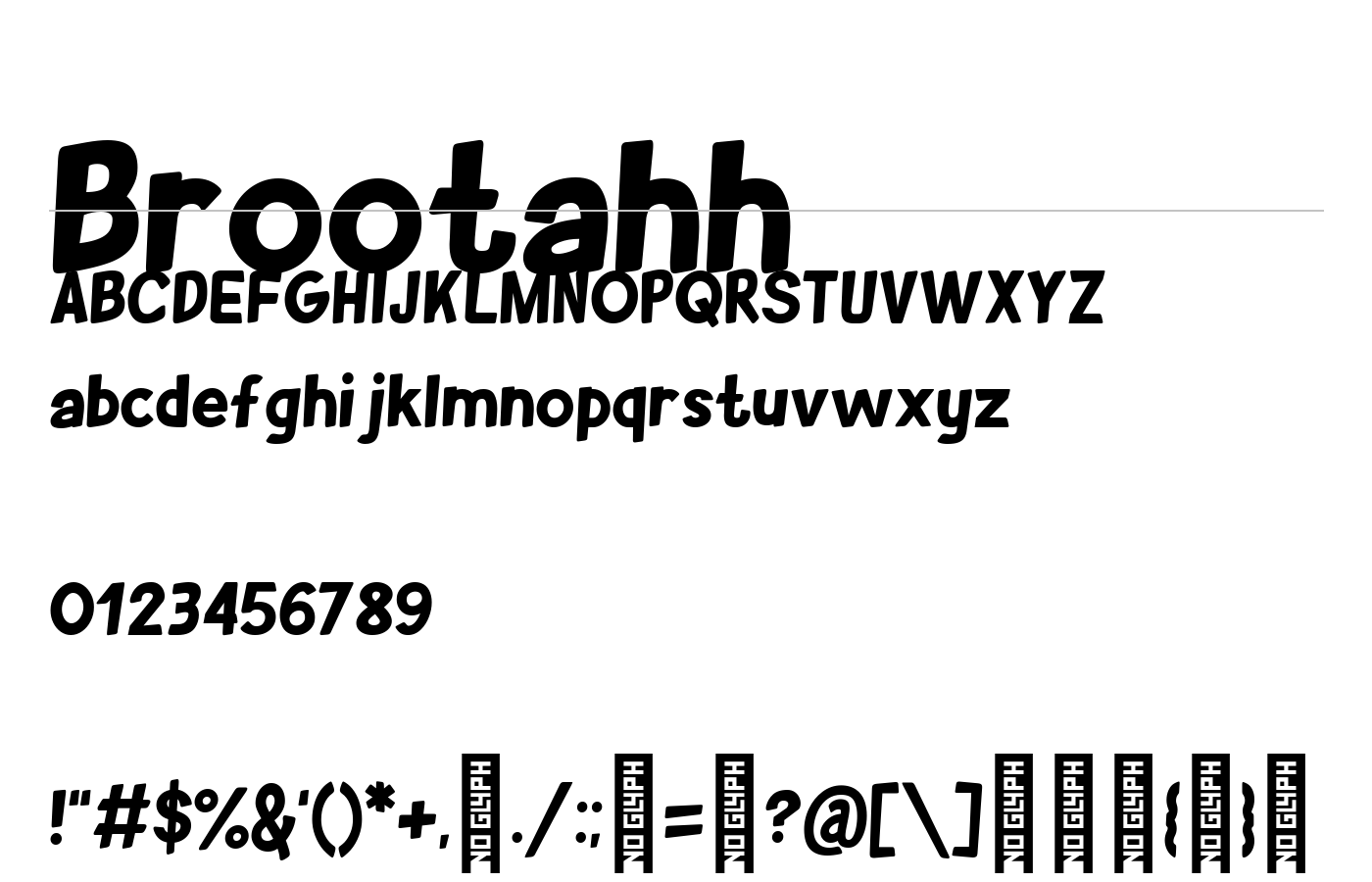
Brootahh is a bold, playful sans serif font featuring slightly condensed letterforms with a moderate x-height and smooth, rounded edges. Its lively, slightly slanted style with quirky character shapes gives it a friendly and energetic personality, making it perfect for fun, informal branding or attention-grabbing headlines. This font works well in creative projects, posters, and logos where a modern, approachable feel is desired.
Brootahh Font
About Brootahh Font
| Font family | Brootahh Font |
| Designer | Alit Suarnegara |